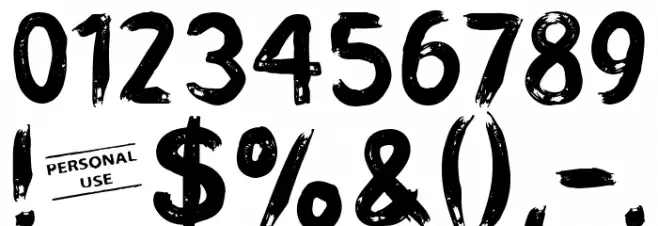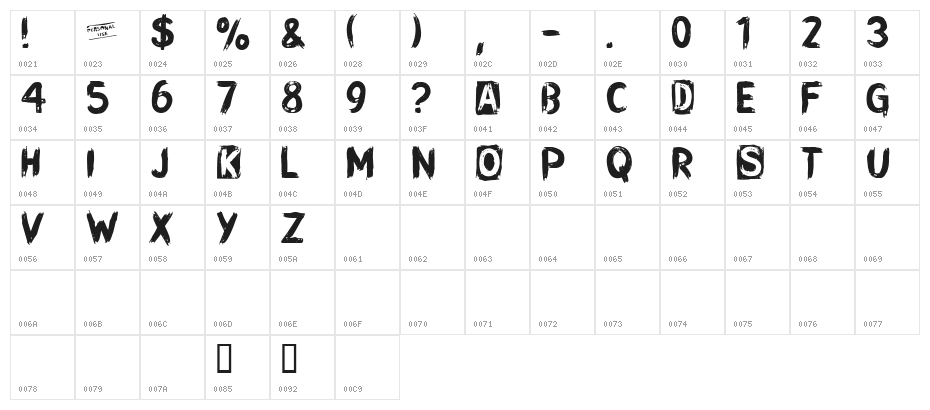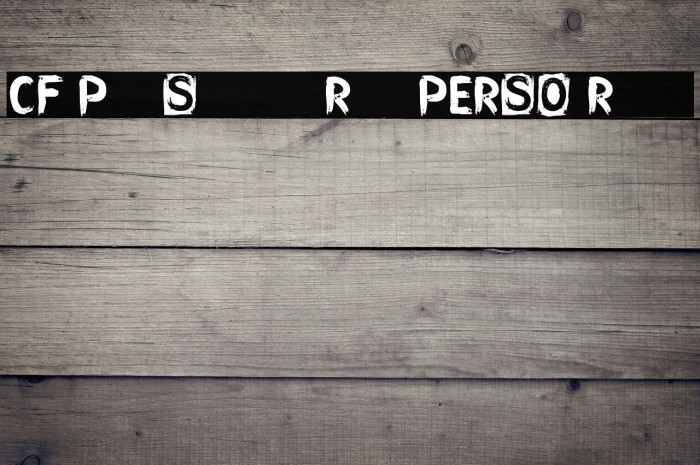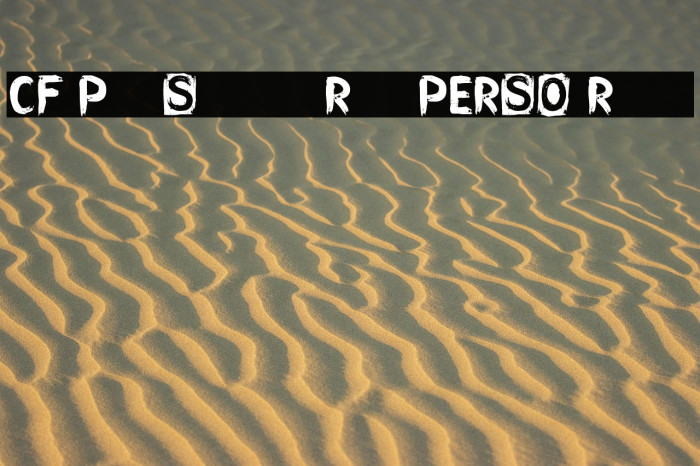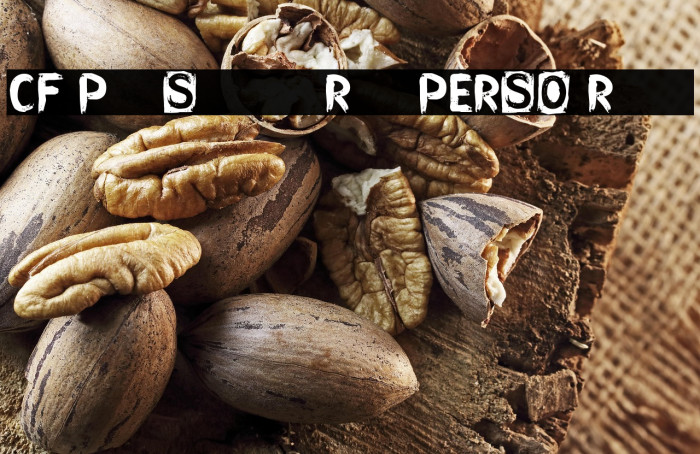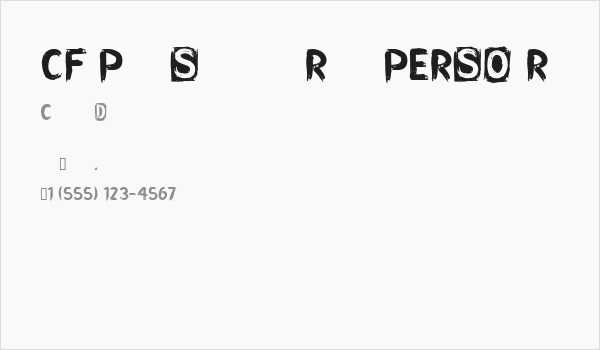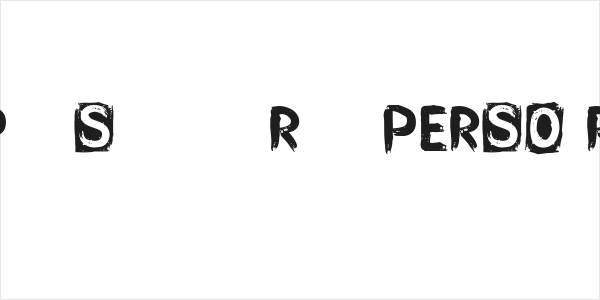
CF Punk Songwriter Rough PERSO Regular Font
CF Punk Songwriter Rough PERSO Regular Description
This font exudes a raw, edgy aesthetic reminiscent of punk rock culture. The letters are bold and rugged, with a distressed texture that gives them a hand-painted appearance. Each character is unique, with irregular edges and a slightly chaotic feel, adding to the rebellious vibe. The numbers and special characters maintain this rough style, ensuring consistency across all elements. This font is perfect for projects that require a bold statement and a touch of grunge.
| Overall Style | Punk, Grunge, Edgy |
| Proposed Projects | Ideal for music album covers, concert posters, edgy branding, and rebellious-themed designs. |